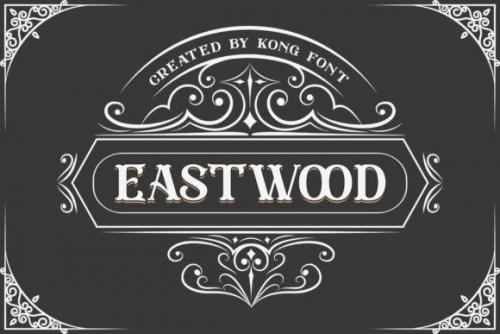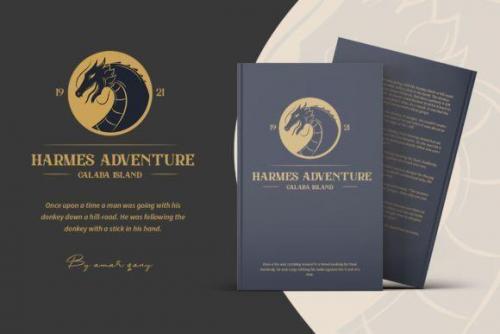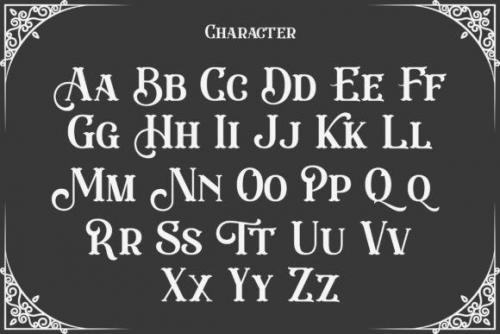
Eastwood is a stylish and incredibly elegant script font. It looks stunning on wedding invitations, thank you cards, quotes, greeting cards, logos, business cards and every other design which needs a handwritten touch.
- Designer: Balpirick